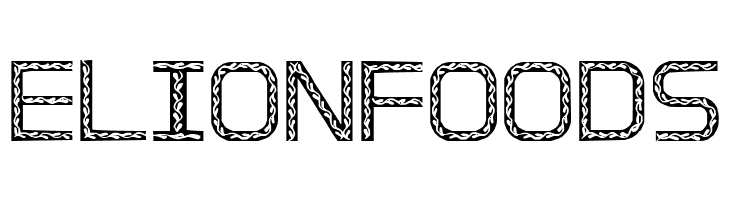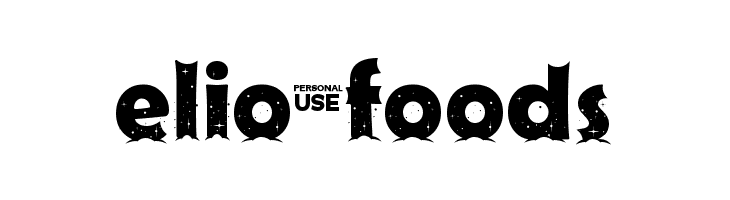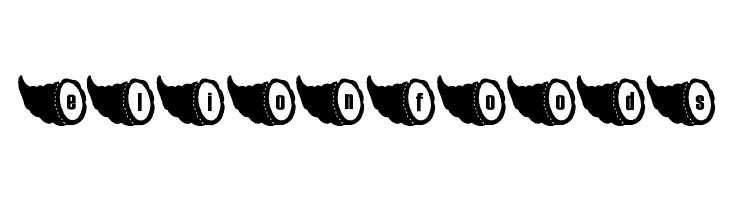
A decorative font with angel illustrations for each character, perfect for festive designs.
A playful decorative font with puppy illustrations, perfect for festive projects.
A festive, gift box-themed font with bold, geometric characters and ribbon accents.
A festive, decorative font with holly leaf and berry motifs.
A playful, decorative font with festive ornament-like elements.
A festive, candy cane-inspired font with bold, striped characters.
A festive, decorative font with Christmas tree and star motifs.
A decorative font with Christmas tree motifs in each letter, perfect for festive designs.
A festive, decorative font with Christmas-themed illustrations integrated into each letter.
A whimsical, festive font with elegant curls and a handwritten calligraphy style.
Ornamental font with detailed Christmas wreath illustrations.
A themed dingbat font with Hanukkah and Jewish festival icons.
A festive, candy cane-inspired font with bold, striped characters.
A playful, candy cane-themed decorative font perfect for festive projects.
A festive, decorative font featuring Santa and reindeer illustrations with each character.
A playful, winter-themed decorative font with bold characters and festive elements.
A playful, decorative font with Easter-themed illustrations and text.
A festive, decorative font with Christmas-themed illustrations and a playful script style.
A playful decorative font with characters inside pots of gold.
A playful, Easter-themed decorative font with outlined letters and festive graphics.
A festive font with uppercase letters in snowmen and lowercase in snowflakes.
A decorative font with snowman-themed letters, perfect for festive projects.
A bold, decorative font with a festive, distressed texture.
A bold, decorative font with snowflake motifs for a festive look.
A decorative font with bold letters and cardinal bird illustrations, perfect for festive designs.
A festive font with characters inside Christmas light bulb shapes.
A decorative font with characters inside cornucopia shapes, perfect for festive themes.
An elegant, ornament-themed decorative font with high contrast script characters.
A whimsical, gingerbread-themed font perfect for festive projects.
A festive, decorative font with holly embellishments on each character.
A bold, decorative font with snowflake-filled characters for festive designs.
A festive, decorative font with candy cane and bow motifs.
A decorative font with Thanksgiving-themed illustrations within bold uppercase letters.
A festive font with Santa illustrations between bold, rounded letters.
A festive, decorative font with Santa Claus elements on each letter.